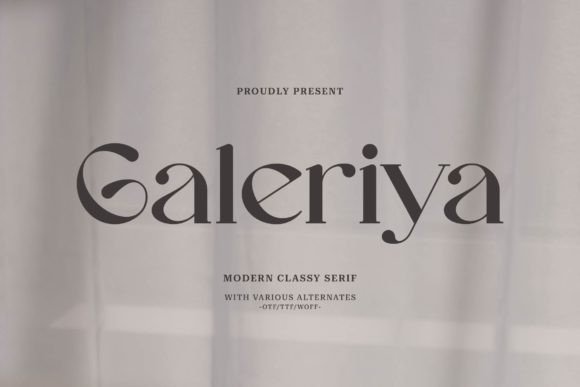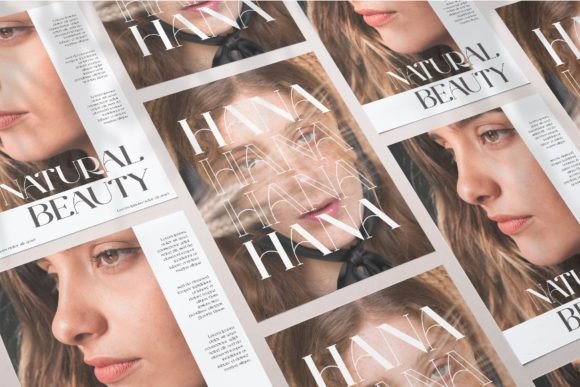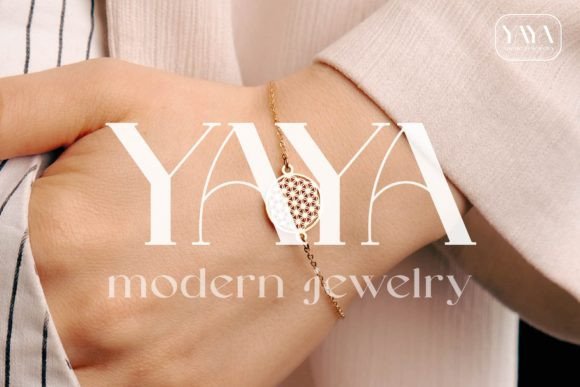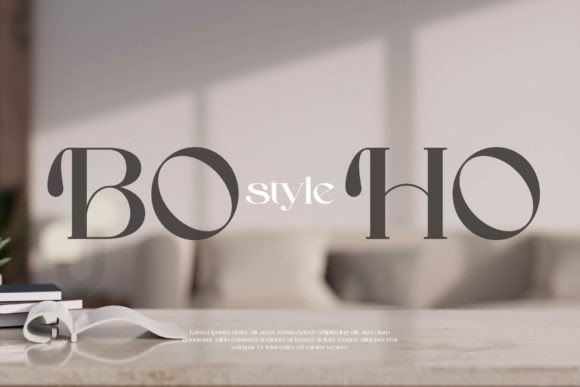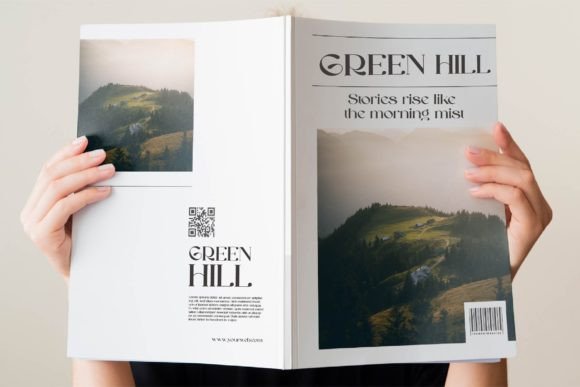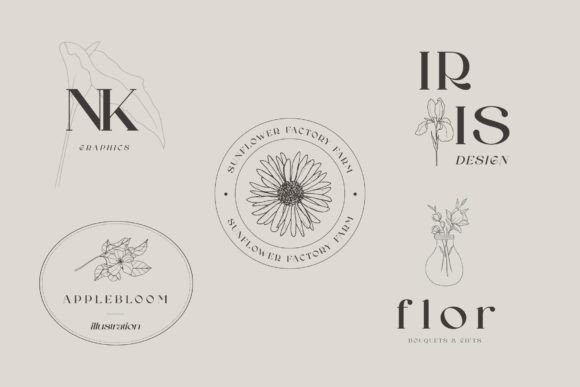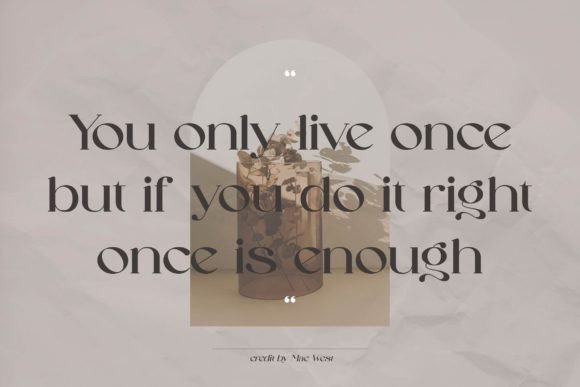
The Perfect Blend of Classic Elegance and Modern Sophistication
Have you ever found yourself pouring over a design project, searching for the perfect font to bring your vision to life? The hunt can be a long and arduous one, but sometimes, all it takes is one discovery to change everything. For designers, the search for the ideal font is a never-ending quest, and we’re excited to share a game-changer with you: the Galeriya Font.
This stunning modern serif font is more than just a pretty face – it’s a versatile tool that can elevate any design project from logos to websites, and from print materials to digital displays. With its smooth curves and clean lines, the Galeriya Font is the perfect blend of classic elegance and modern sophistication, making it a valuable addition to any designer’s toolkit.
Galeriya Font Key Features
- Font Family: Galerlya Font comes in 4 font styles: Galerlya Regular, Galerlya Italic, Galerlya Bold, and Galerlya Bold Italic.
- Character Set: Supports a wide range of languages, including Latin, Cyrillic, and Greek alphabets, making it suitable for international use.
- Unique Characteristics: Galerlya Font features a unique blend of modern and vintage elements, with distinctive flourishes and ornaments that add a touch of elegance and sophistication.
Galeriya Font Review
I recently had the chance to work with the Galeriya font, and I must say it’s been an interesting experience.
The Galeriya font has a beautiful, elegant feel to it. It’s perfect for designs that require a touch of sophistication and refinement. The font is also highly customizable, allowing you to adjust the weight, slant, and spacing to suit your needs.
- Wide range of weights and styles available
- Highly customizable for fine-tuned design control
- Works well for both body text and headings
While the Galeriya font is versatile, it may not be the best choice for more casual or playful designs. The font can also appear somewhat rigid or formal, which may not be suitable for every project.
- May not be the best choice for casual or playful designs
- Can appear rigid or formal in certain contexts
- May require additional styling to make it stand out
The Galeriya font is a solid choice for designs that require a level of sophistication and refinement. While it may have some limitations, it’s a versatile and highly customizable font that can add a touch of elegance to your projects.
Galeriya Font is ideal for:
- Designing elegant and sophisticated logos.
- Creating visually appealing typography for brochures and flyers.
- Adding a touch of luxury to digital
Alternatives to Galeriya Font
Playfair Display is a luxurious and elegant serif font, ideal for high-end branding and advertising. It features intricate details and beautiful flourishes, making it perfect for creating a sophisticated and luxurious atmosphere. Compared to Galeriya Font, Playfair Display has a more refined and classic look, while Galeriya Font has a more modern and minimalist feel.
Great Vibes is a beautiful and elegant script font, perfect for creating a warm and inviting atmosphere. It’s ideal for use in branding, advertising, and packaging design. Compared to Galeriya Font, Great Vibes has a more flowing and handwritten feel, while Galeriya Font has a more geometric and modern look.
Montserrat is a geometric sans-serif font, ideal for use in modern and urban design. It’s perfect for creating a clean and minimalist look, making it perfect for use in branding, advertising, and digital design. Compared to Galeriya Font, Montserrat has a more geometric and modern feel, while Galeriya Font has a more elegant and sophisticated look.